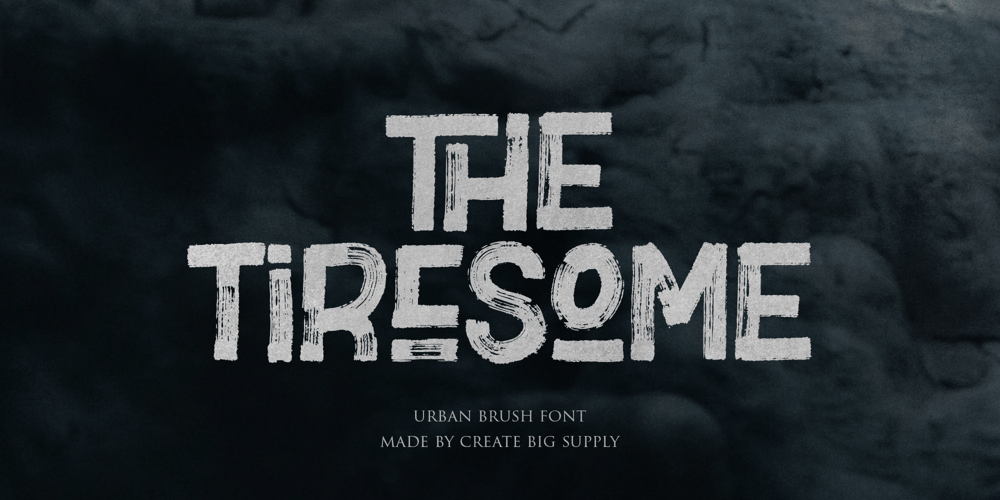
The Tiresome Font Family was designed by Irpan Maulana and published by Create Big Supply. The Tiresome contains 1 styles and family package options. The Tiresome is a sans serif brush font that has bold, strong, bold characters. This will add a very unique and powerful touch to your design. This font is PUA encoded which means you can access all the glyphs and sweeps easily Features: All Uppercase Numbers and punctuation Multilingual Ligatures Alternates PUA Encoding Full Character Set!”#$%&()*+,-./0123456789<=>?@ABCDEFGHIJKLMNOPQRSTUVWXYZ[]^_abcdefghijklmnopqrstuvwxyz{}~ ¡¢£¤¥§©«®°±»¿ÀÁÂÃÄÅÆÇÈÉÊËÌÍÎÏÑÒÓÔÕÖØÙÚÛÜÝÞßàáâãäåæçèéêëìíîïñòóôõö÷øùúûüýþÿıŒœŠšŸŽž–—‘’‚“”„†‹›€−